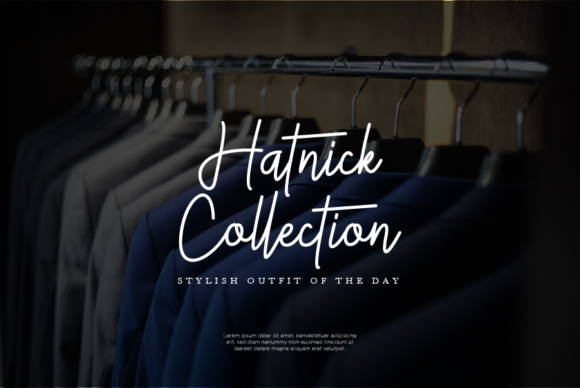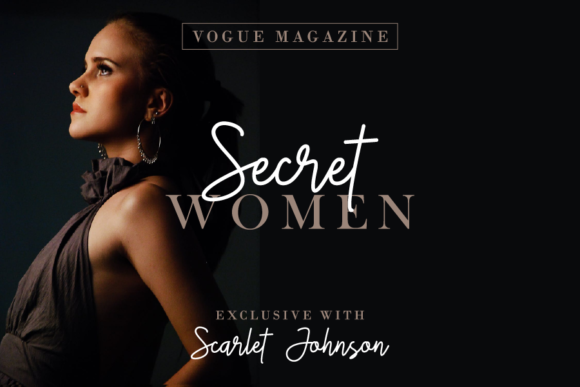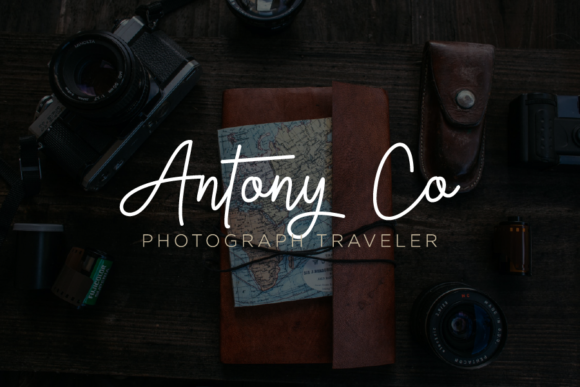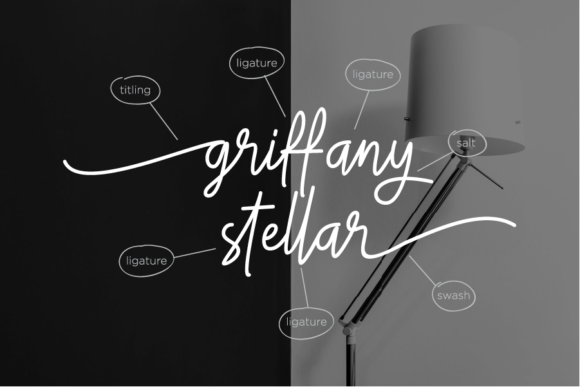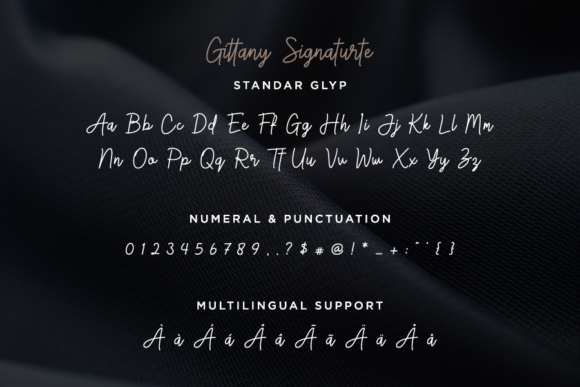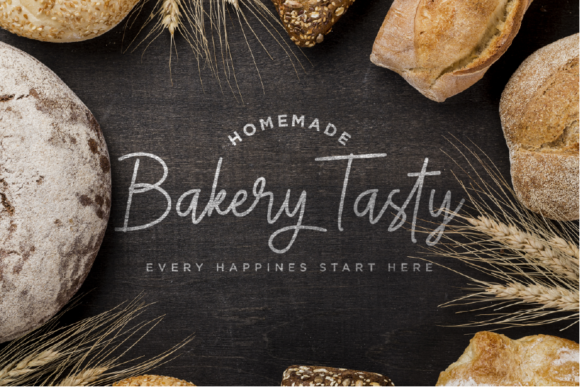
About Gittany Signature Font
Gittany Signature is a beautiful and stylish script font. This versatile script font has a wide spectrum of applications ranging from greeting cards to headlines and is guaranteed to add a romantic feel to your next project.